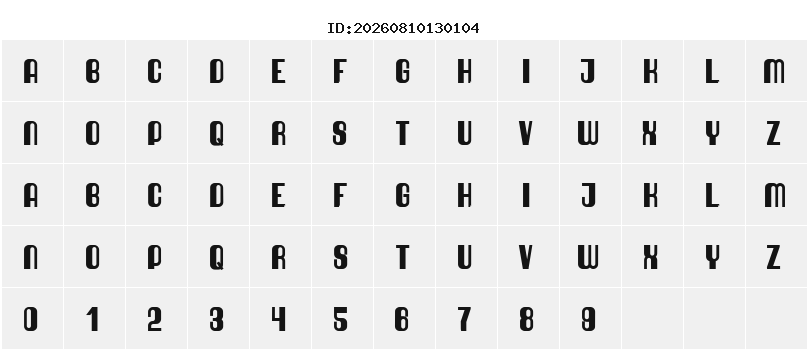
• Font Name: Quimbie UH
• Designer: Peter Wiegel
About Quimbie UH.ttf
Quimbie UH.ttf is a modern, elegant sans-serif font designed for ultimate readability and visual harmony. Perfect for branding, headlines, web design, and print materials.